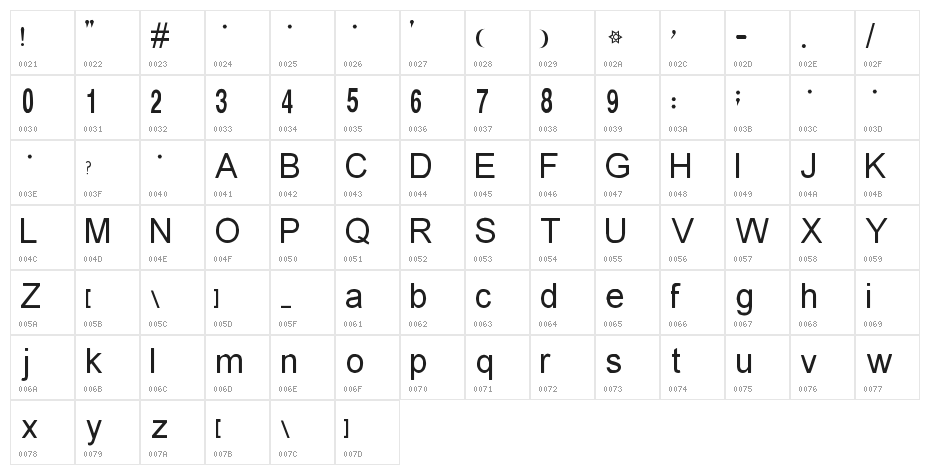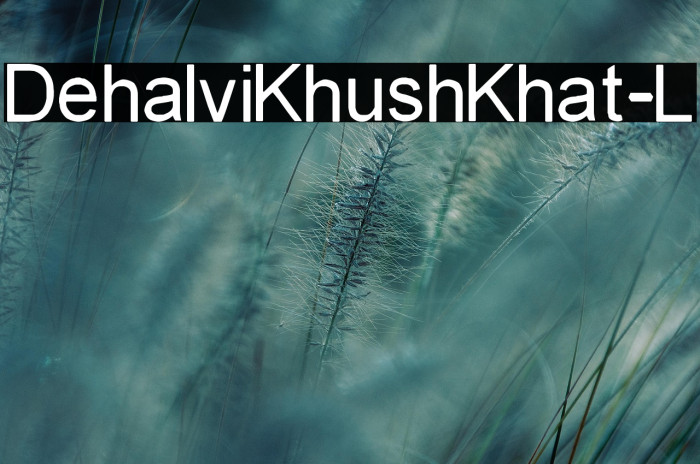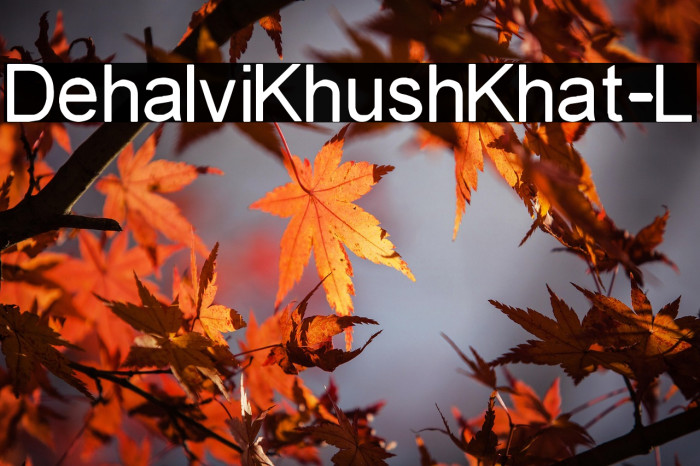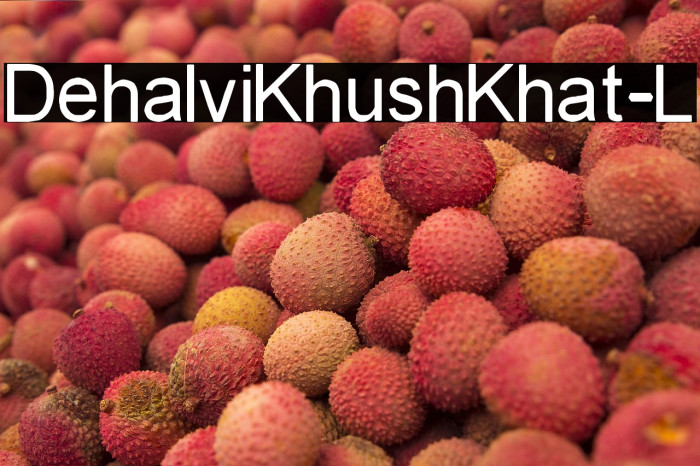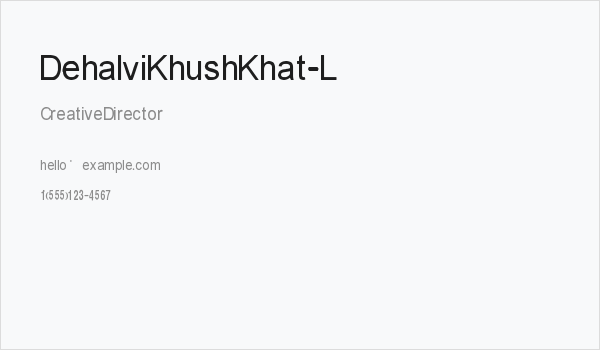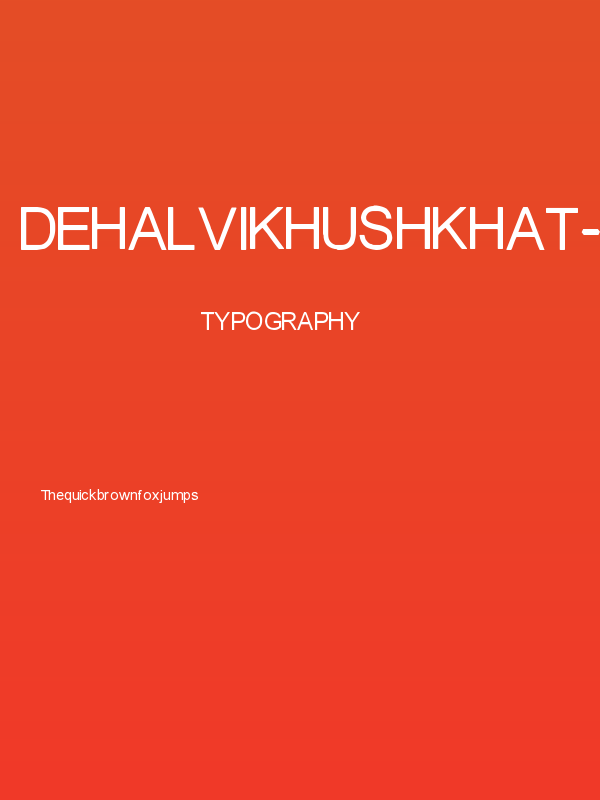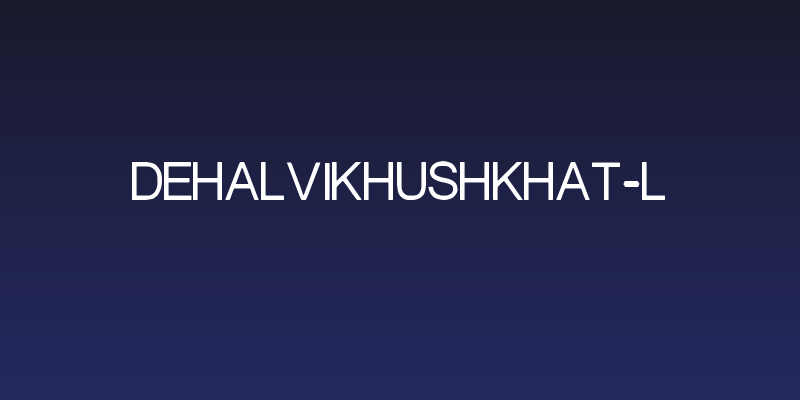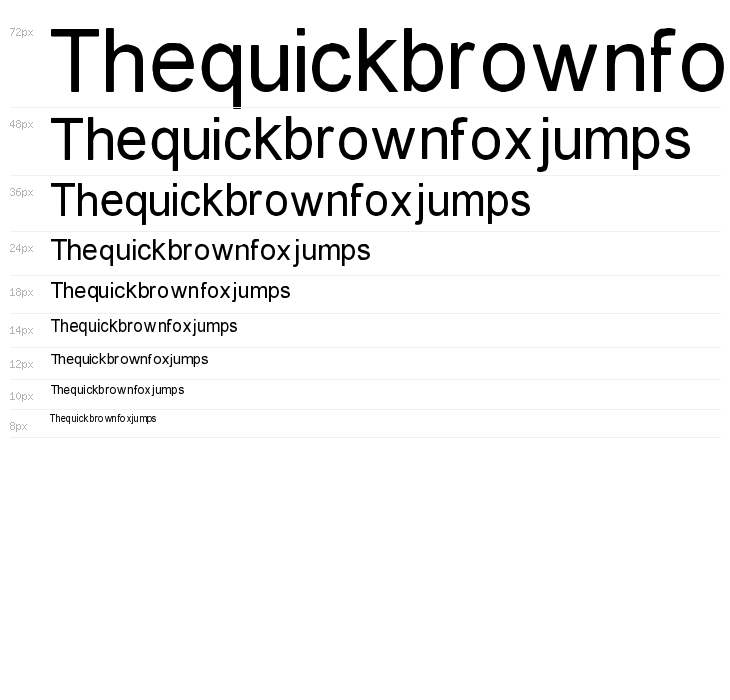
Dehalvi Khush Khat-L Font
Dehalvi Khush Khat-L Description
This font features a clean and modern sans-serif design, characterized by its uniform stroke width and geometric shapes. The uppercase letters are bold and assertive, while the lowercase letters maintain a consistent and harmonious appearance. The numerals are clear and easily distinguishable, making them suitable for various applications. The special characters are well-integrated, providing a comprehensive set for diverse uses. Overall, the font exudes a contemporary and professional vibe, ideal for digital and print media.